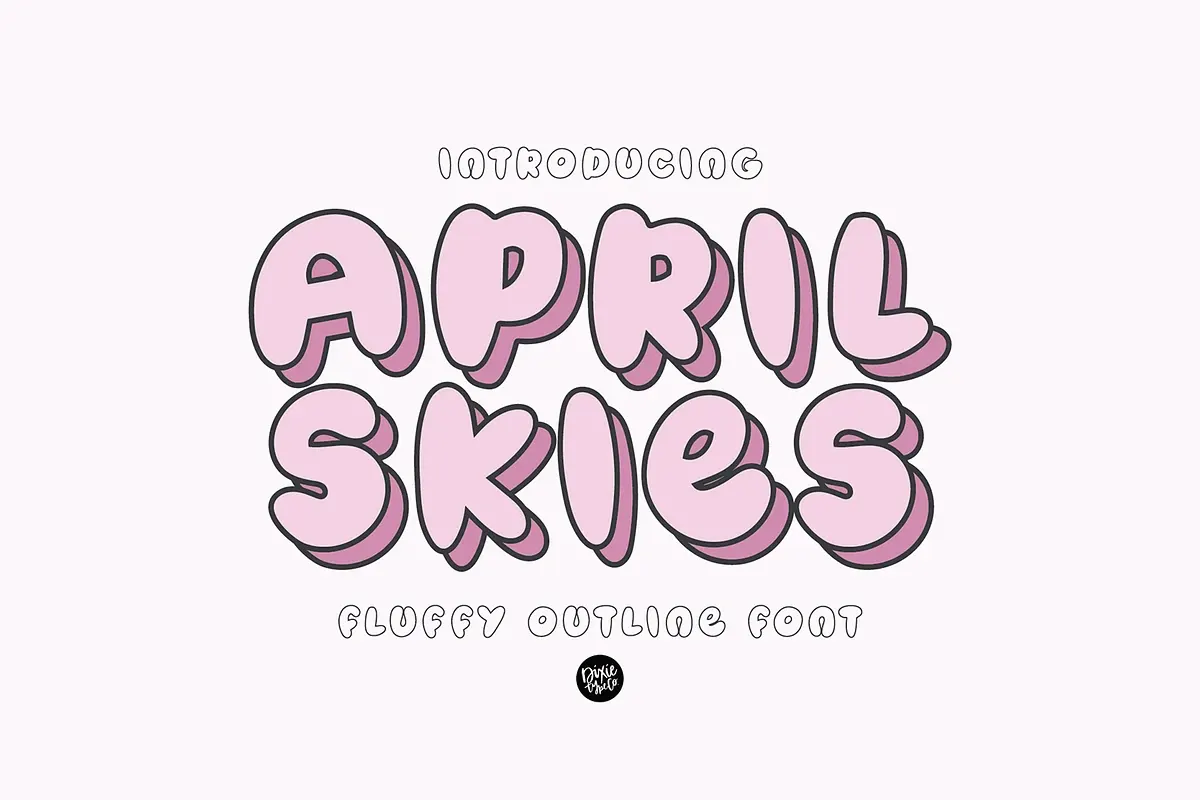
APRIL SKIES Fluffy Outline Font Free Download
APRIL SKIES Fluffy Outline Font Free Download is a soft, playful, and whimsical typeface designed to bring a light, airy feel to your designs. With its fluffy outline and rounded edges, APRIL SKIES is perfect for children’s projects, greeting cards, event invitations, logos, and branding that need a cute and friendly touch.
APRIL SKIES Fluffy Outline Font Free Download brings a touch of sweetness and warmth to any design. Its gentle outline and rounded letters make it a great choice for fun, creative projects where a playful, soft aesthetic is key. Whether you're designing for a kids' brand, a lighthearted event, or a fun social media campaign, this font adds charm and personality to your work.